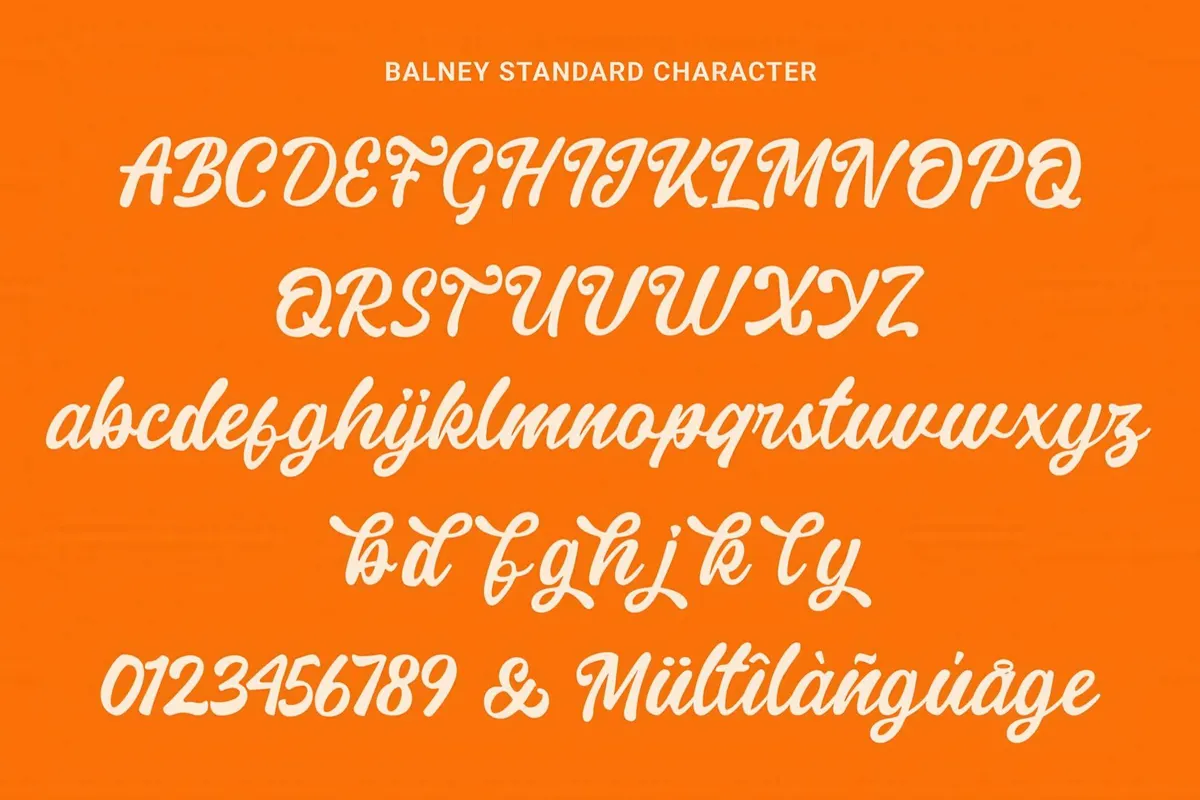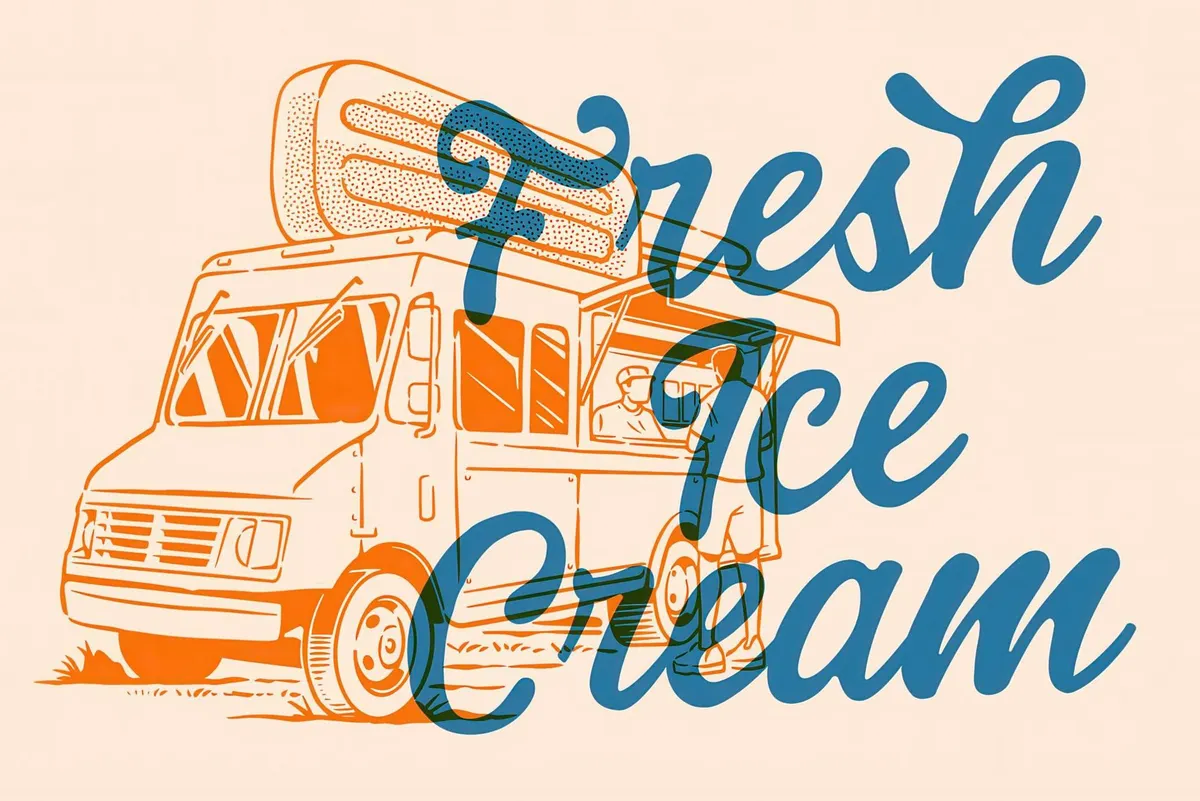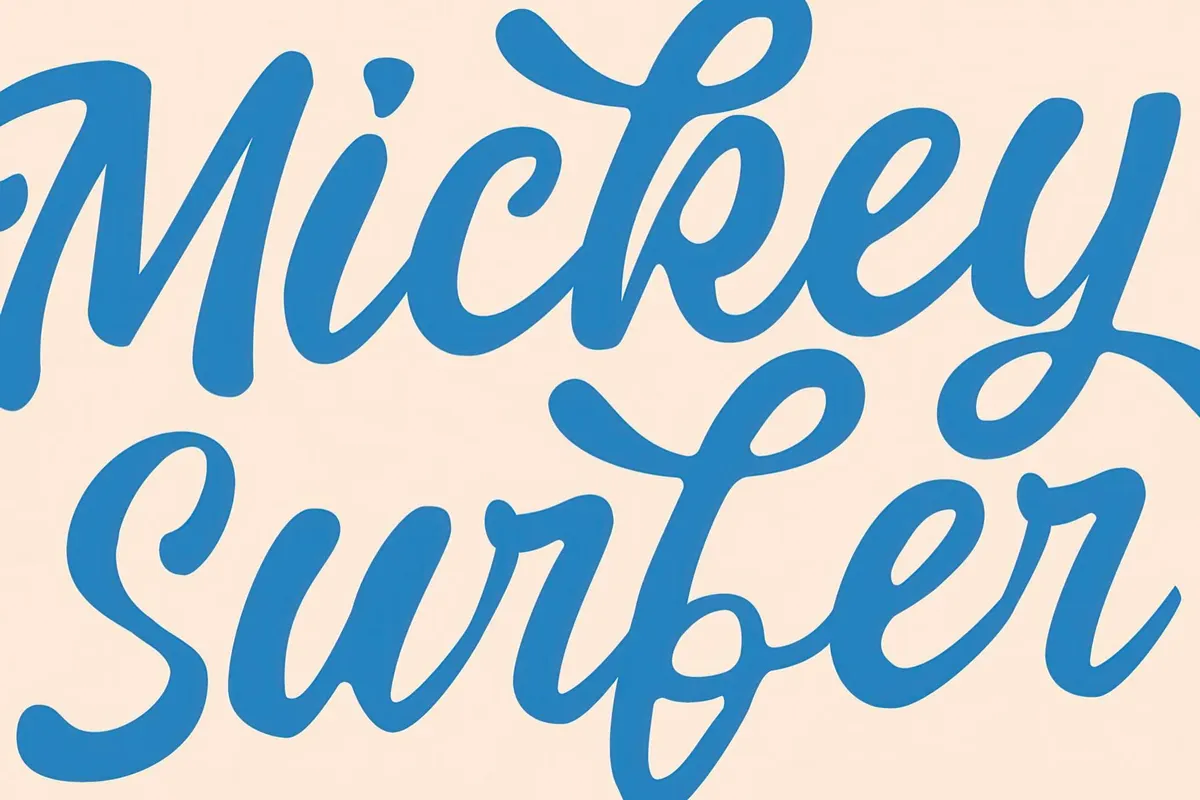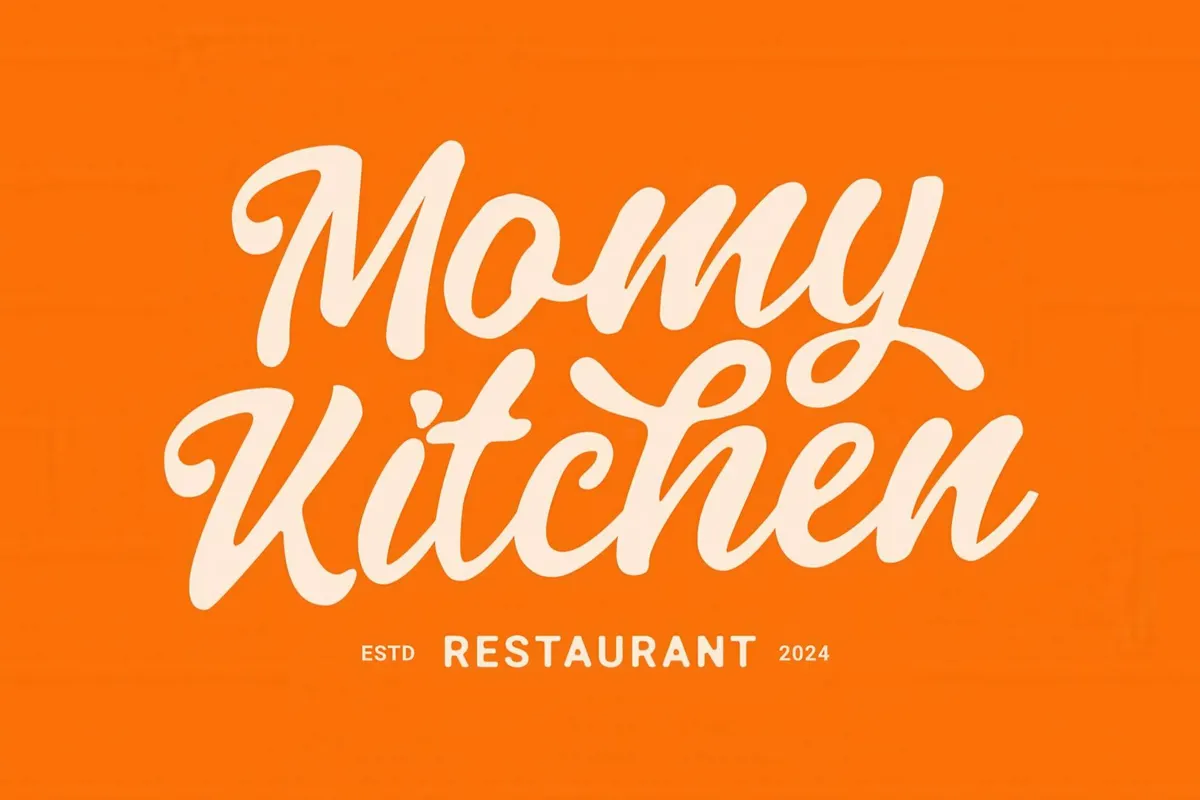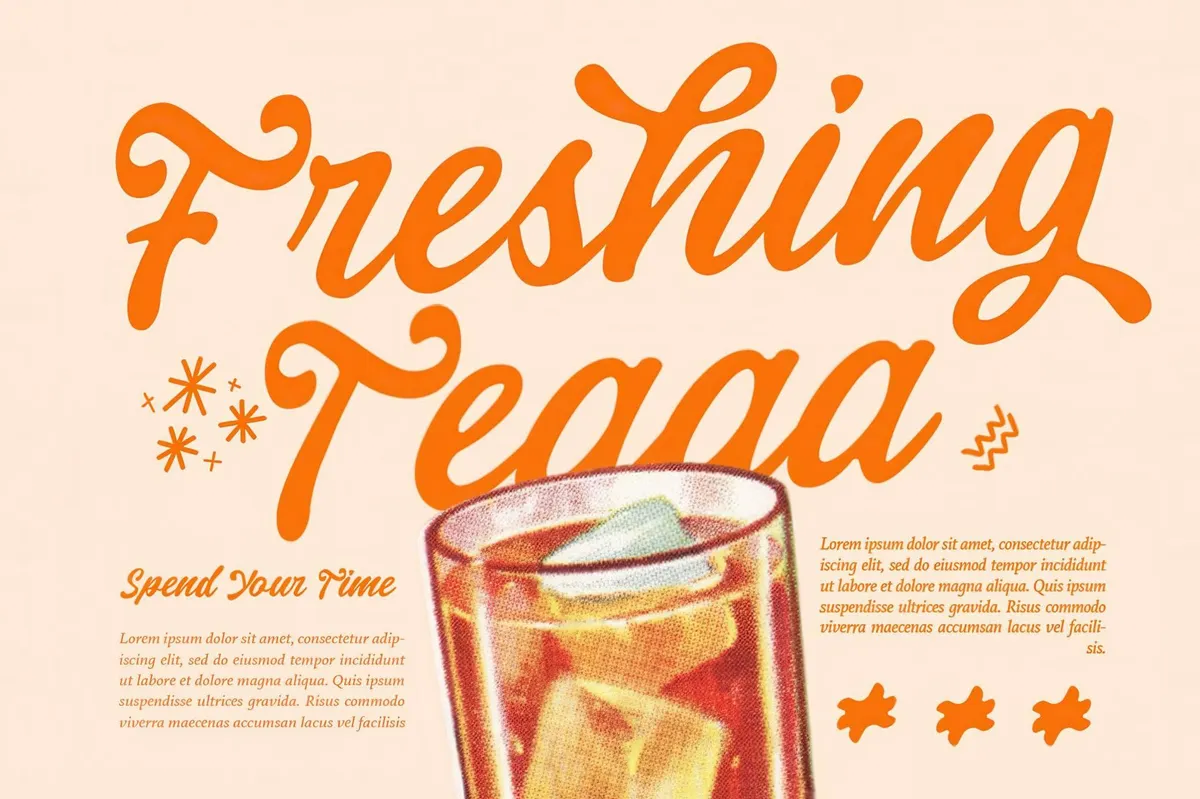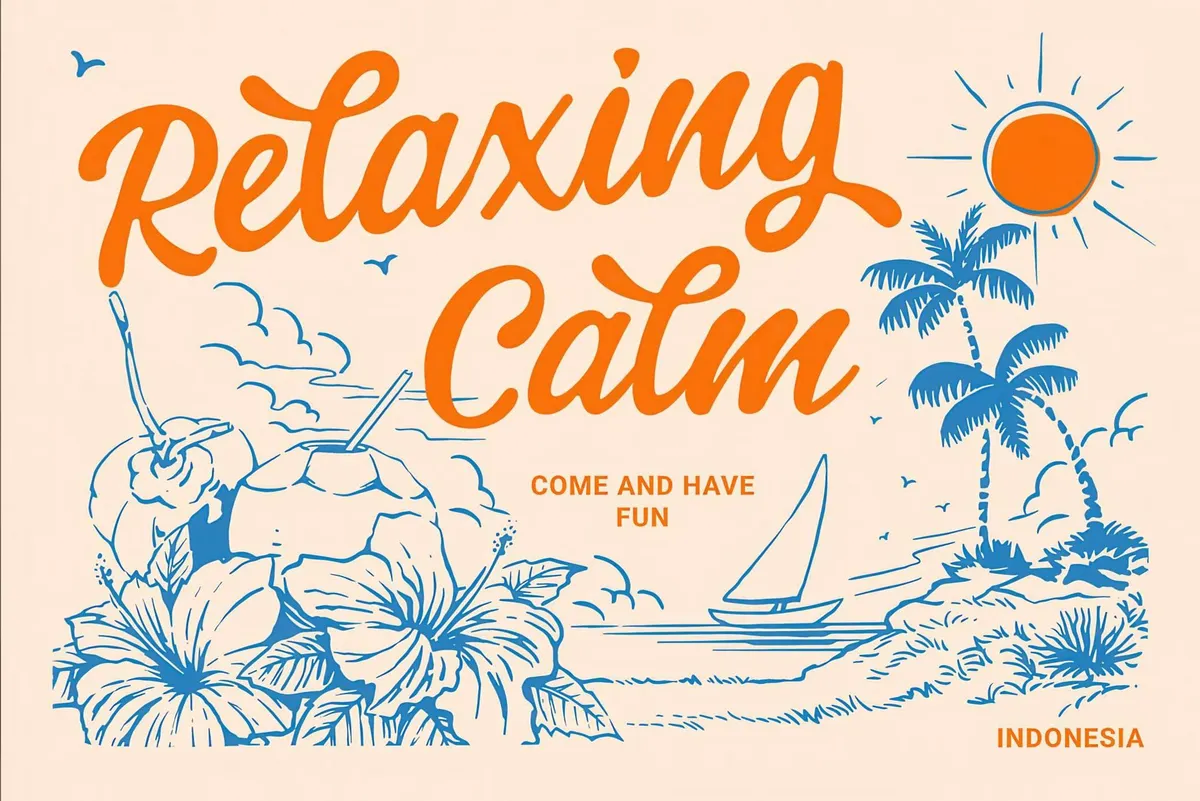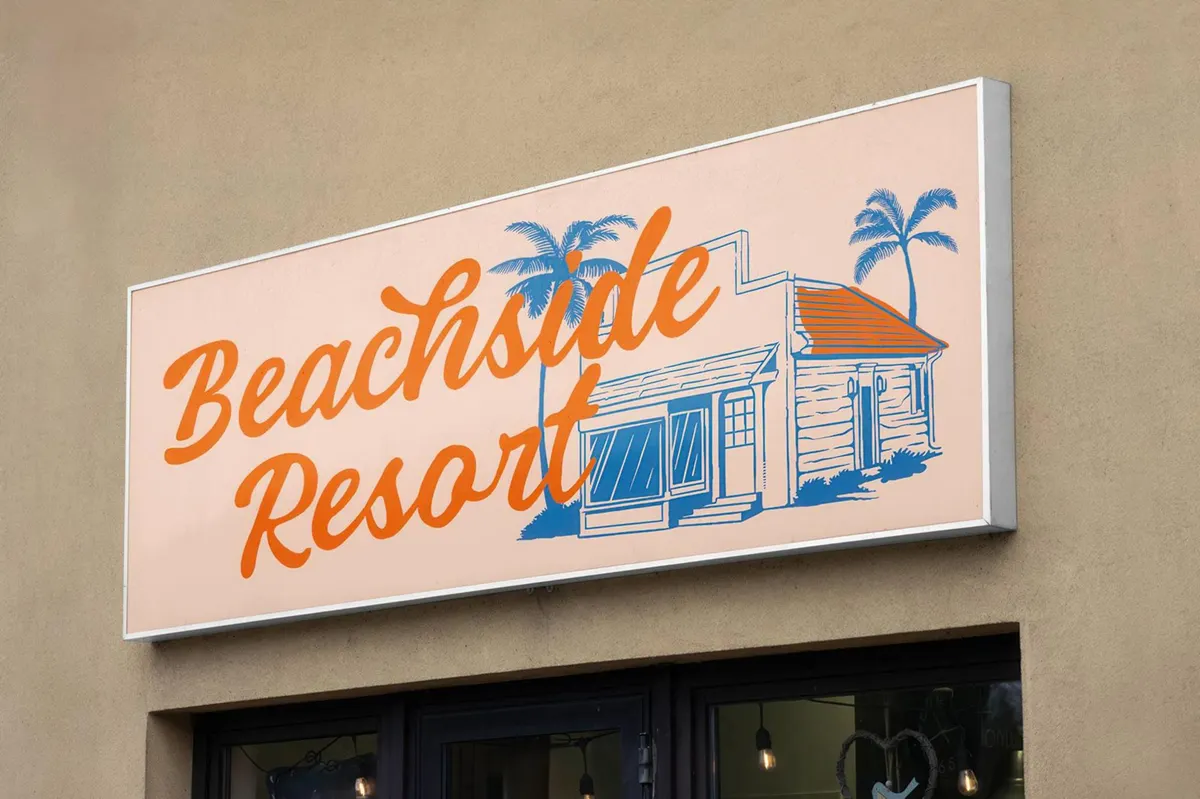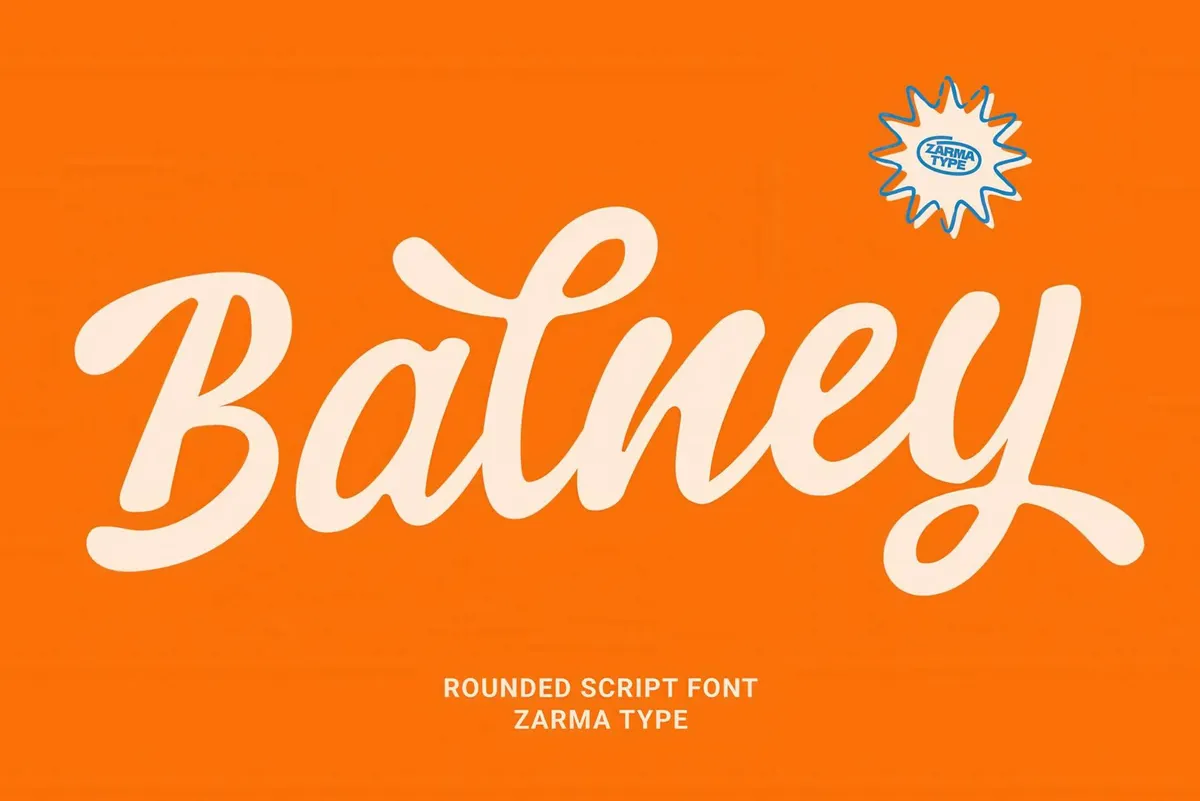
Balney — Rounded Script Font
Balney hums like a 70s radio hit on a road trip through orange-tinted nostalgia. This rounded script font balances playful curves with clean readability, making it a standout for branding that wants to feel fresh without trying too hard. It’s got that laid-back charm perfect for packaging, social media, and logos that aim to feel warm, handmade, and a little sun-kissed.
The set includes uppercase and lowercase letters, stylistic alternates, numerals, and full multilingual support, all finely kerned and PUA encoded for easy access. It's good vibes and typographic polish in one go. Use Balney for your summer promo campaigns, headlines, and social media visuals or just sprinkle a pinch of retro personality to any design.